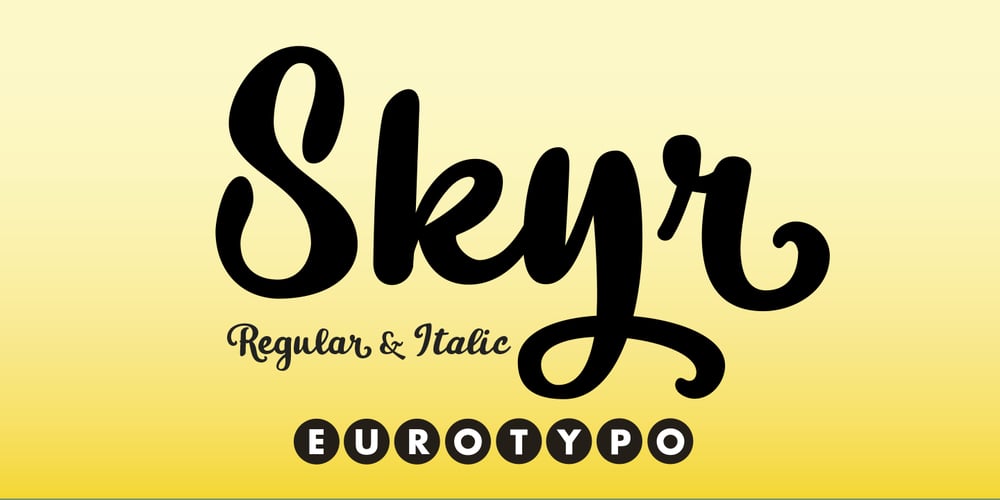
Skyr Pro Font Family was designed by Carine de Wandeleer and published by Eurotypo. Skyr Pro contains 2 styles and family package options. Skyr is a modern, fun and casual script with a unique and modern look. Skyr family package comes in two styles: regular and italic. Each of these fonts contains 543 glyphs including stylistic and contextual alternatives in uppercase and lowercase, swatches, stylistic sets, standard and discretionary ligatures for a genuine handwriting effect and European central language support. Skyr looks good in children’s books, fashion, magazines, restaurant menus, book covers, wedding invitations, greeting cards, logos, business cards and is perfect for use in designs based on ink or watercolor, and more!